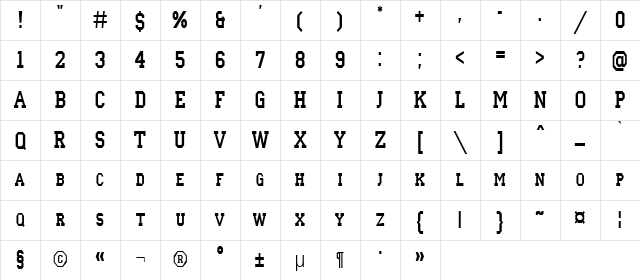
Complete a_CampusCapsNr Regular glyph index. Displaying only characters natively supported by a_CampusCapsNr Regular font.
a_CampusCapsNr is a composed and adaptable typeface that performs quietly and consistently across a wide range of design contexts.